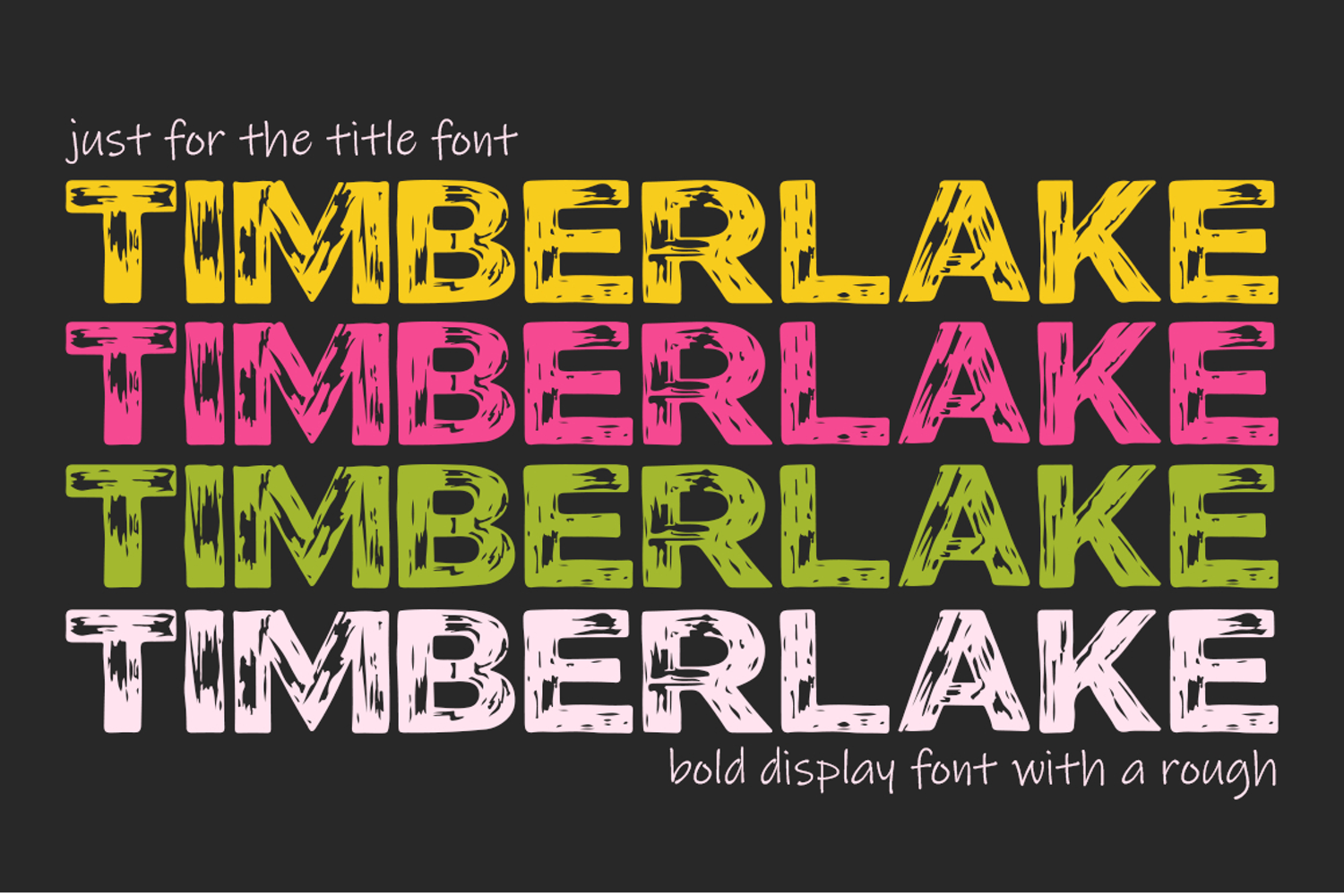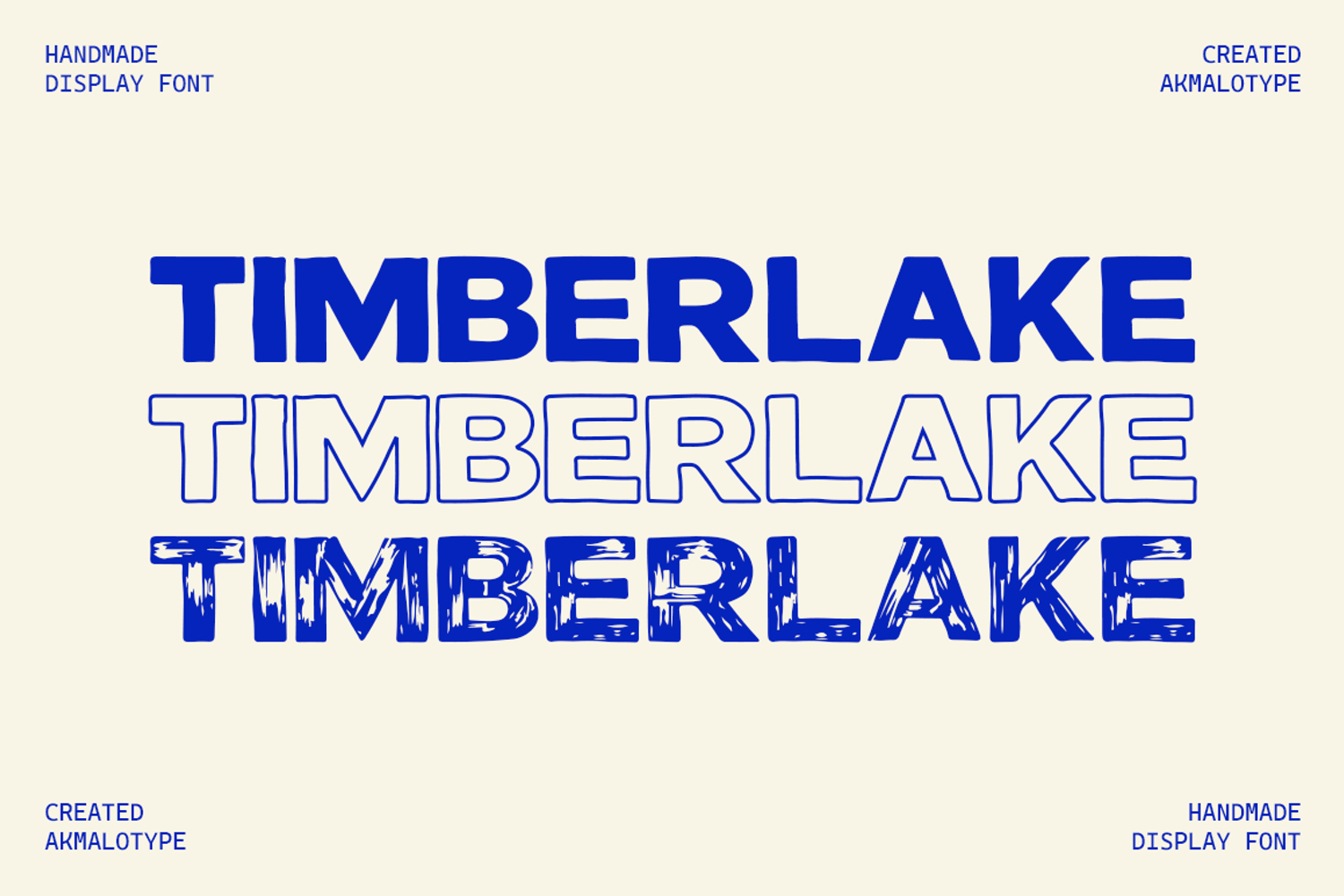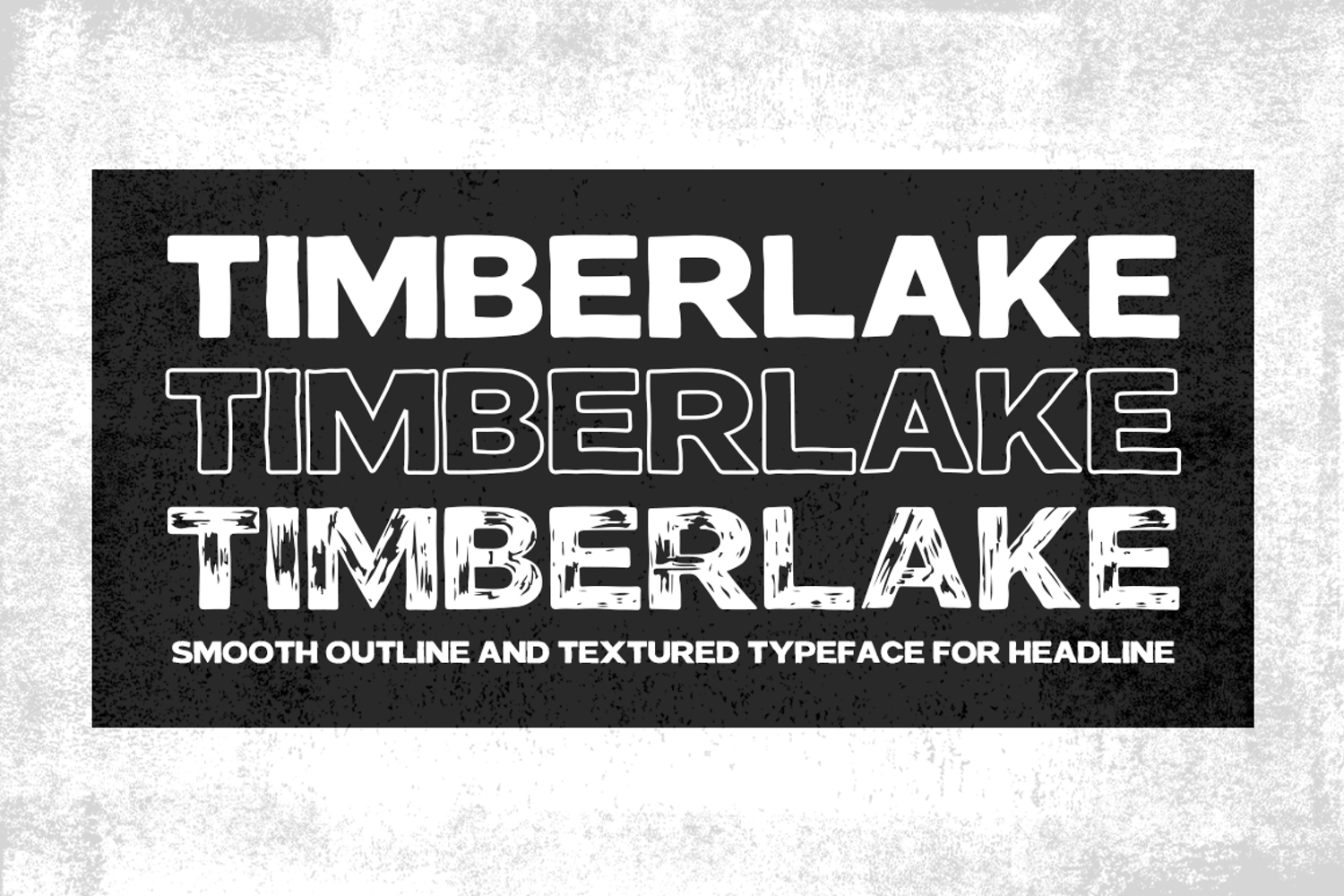
Timberlake Font - Rough
TIMBERLAKE is a bold display font with a rough, scratched texture that gives it a raw and edgy look. Its distressed details create a dynamic, grunge-style appearance, making it perfect for posters, headlines, and designs that need a strong, expressive character.